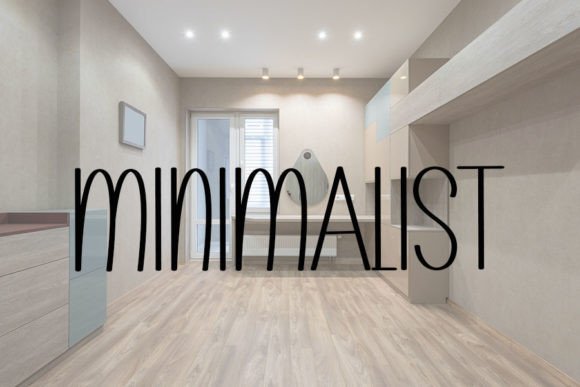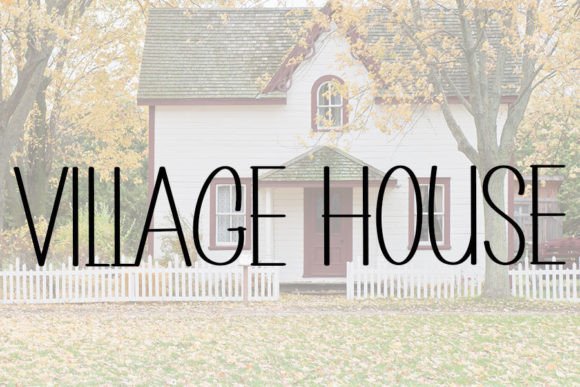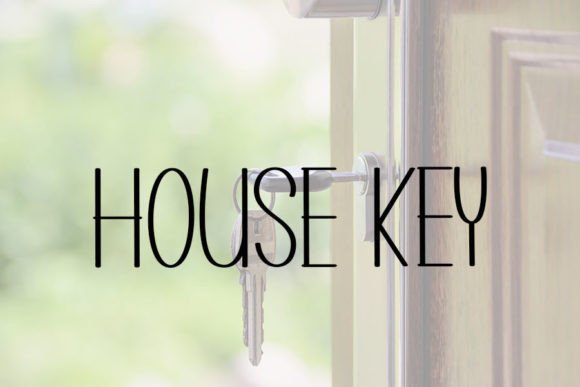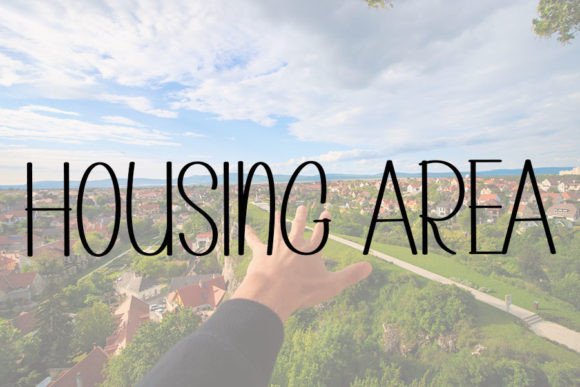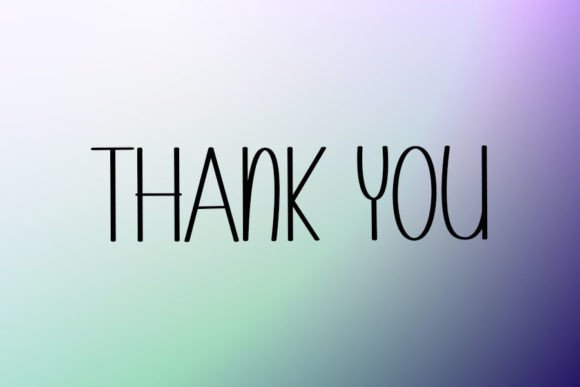
Small House is a neat and beautiful handwritten font designed to bring elegance and charm to your creative projects. With its refined letterforms and graceful flow, this typeface instantly elevates your work, whether you’re designing a logo, crafting wedding invitations, or creating stylish social media graphics.
One of the standout features of Small House is its timeless, versatile style. The balanced strokes and clean shapes make it highly readable while still feeling personal and unique. This balance allows it to adapt effortlessly to both casual and formal designs.
Use Small House to add a sophisticated touch to:
Greeting Cards and Invitations: Perfect for weddings, birthdays, and special occasions.
Branding and Logos: Give your brand a warm, approachable feel.
Quotes and Posters: Make your words stand out with elegance.
Social Media Posts: Create visually appealing graphics that capture attention.
This font is designed with ease of use in mind. Whether you’re a professional designer or simply enjoy DIY projects, you’ll love how simple it is to create polished, beautiful compositions.
Small House also pairs wonderfully with serif and sans-serif fonts, allowing you to build harmonious typography combinations that feel cohesive and modern.